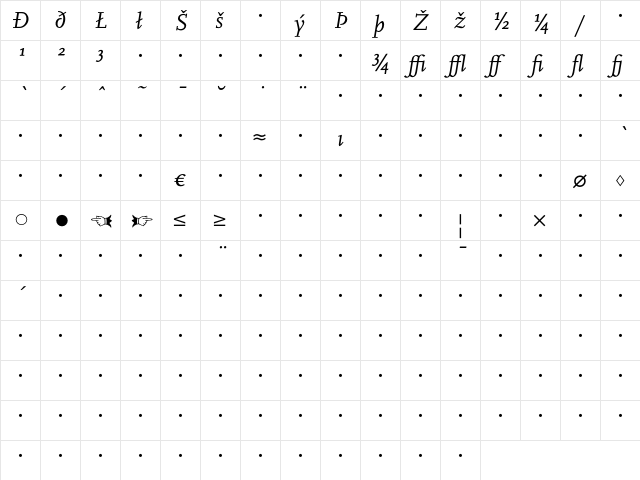
Scala Expert Italic
Design Context for Scala Expert Typeface
Scala Expert takes a measured approach to typography — its balanced proportions and neutral character make it a reliable workhorse for both digital and print work. The slanted form adds forward momentum and visual energy.
Pro Tip: Try Scala Expert for annotation and caption copy alongside an upright companion — the contrast in angle creates a dynamic but ordered typographic system.